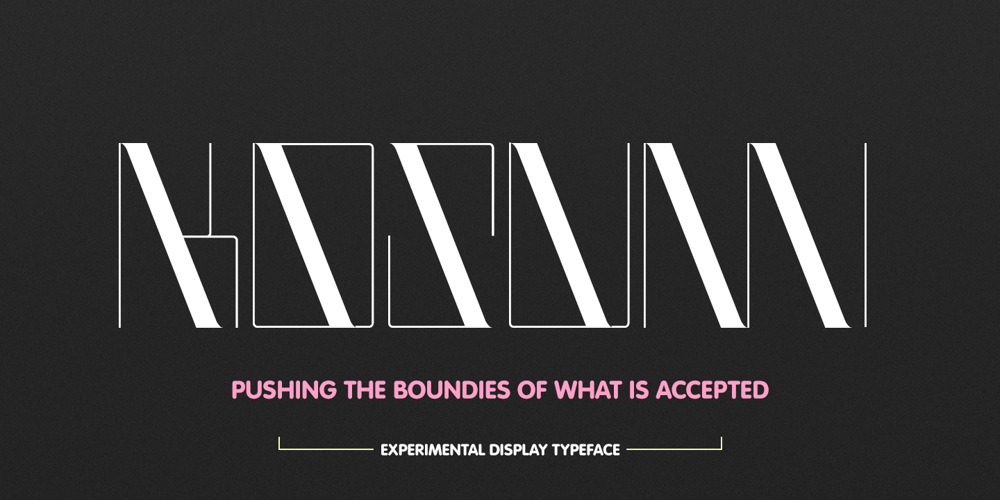
Kosumi
Kosumi font
Kosumi Font Family was designed by Greg Ponchak and published by HyperFluro. Kosumi contains 1 styles and family package options. Kosumi is an experimental display typeface. Its juxtaposition of thick and thin catches that gleam in your eye, and leads you by the hand out of your comfort zone with such ease that you’ll never look back. Kosumi is comfortable in any of a thousand different places, looking brilliant on posters, and reigning supreme within magazine spreads. All you need to do is let is whisk you away. The eye-catching differences between thick and thin lines serve to capitalise your attention, ensuring your nicely laid out headline is truly the star of the show!